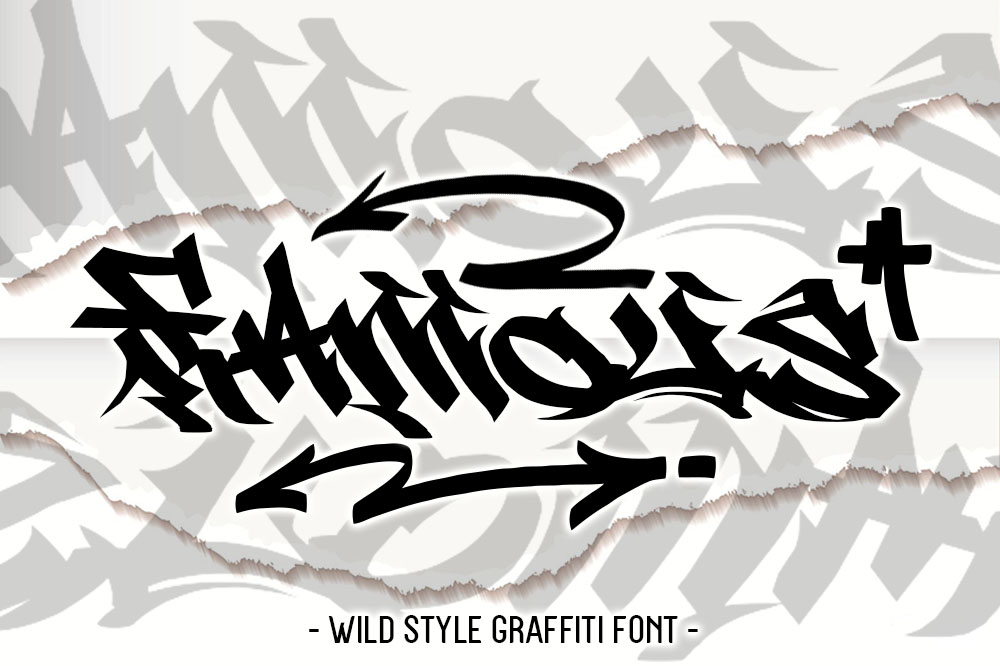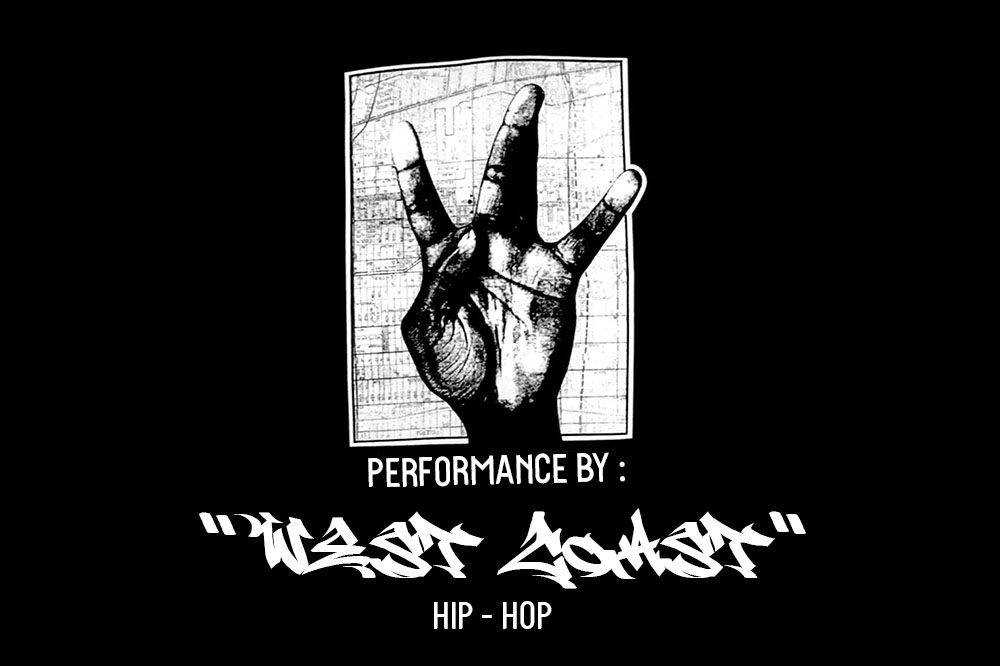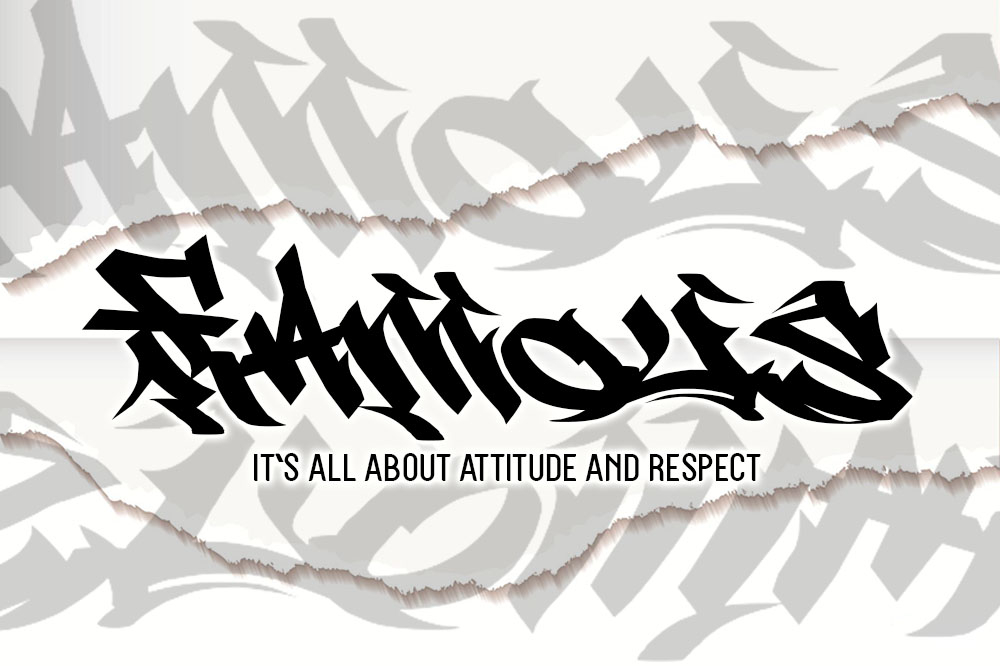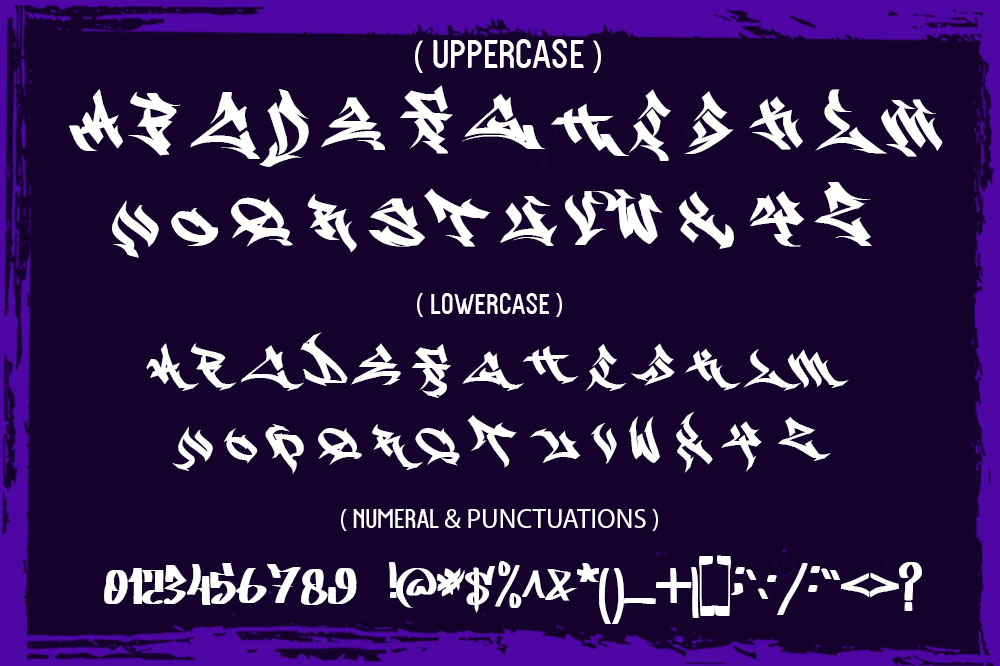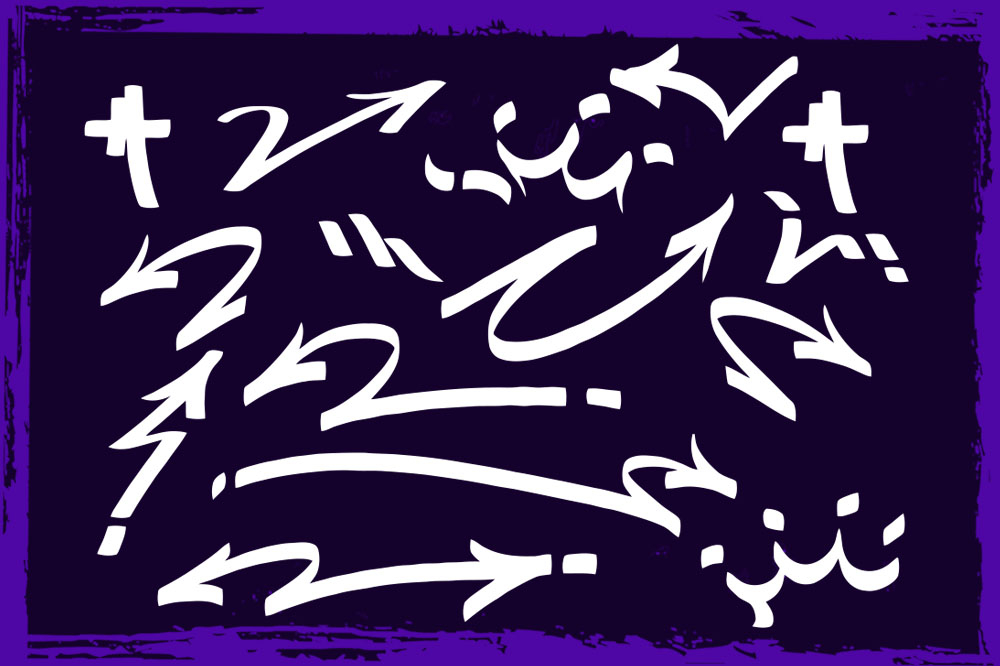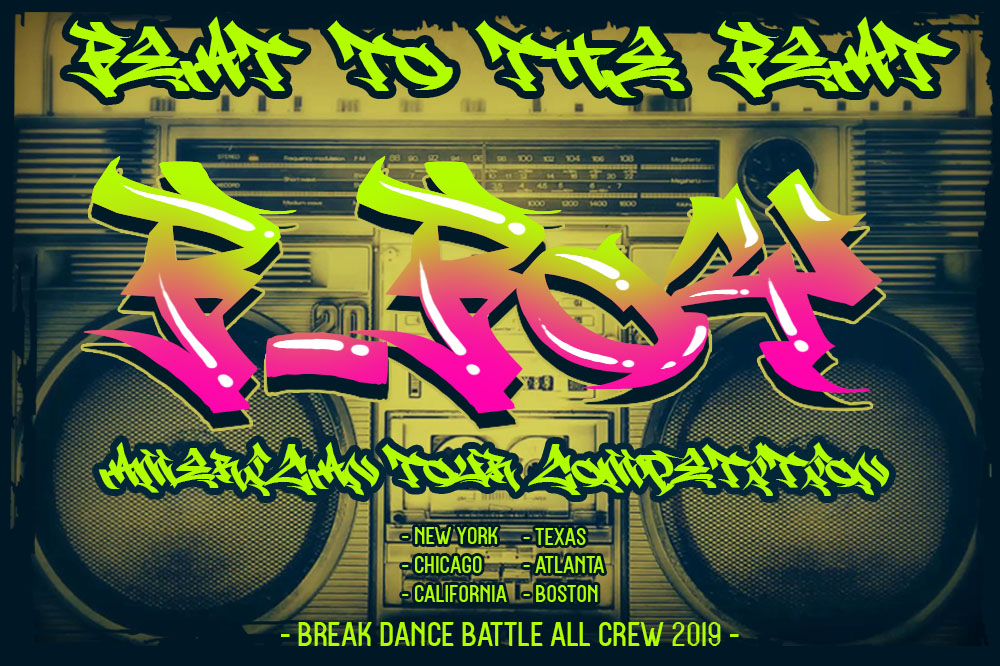
East Coast Wild Style Font
About East Coast Wild Style Font
East Coast Wild Style is a wild graffiti font with a unique street-inspired style. Get inspired by its urban vibe!